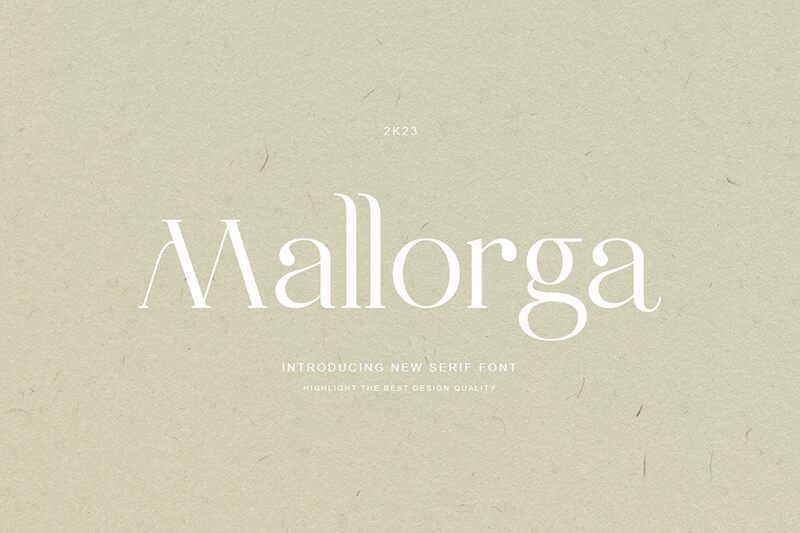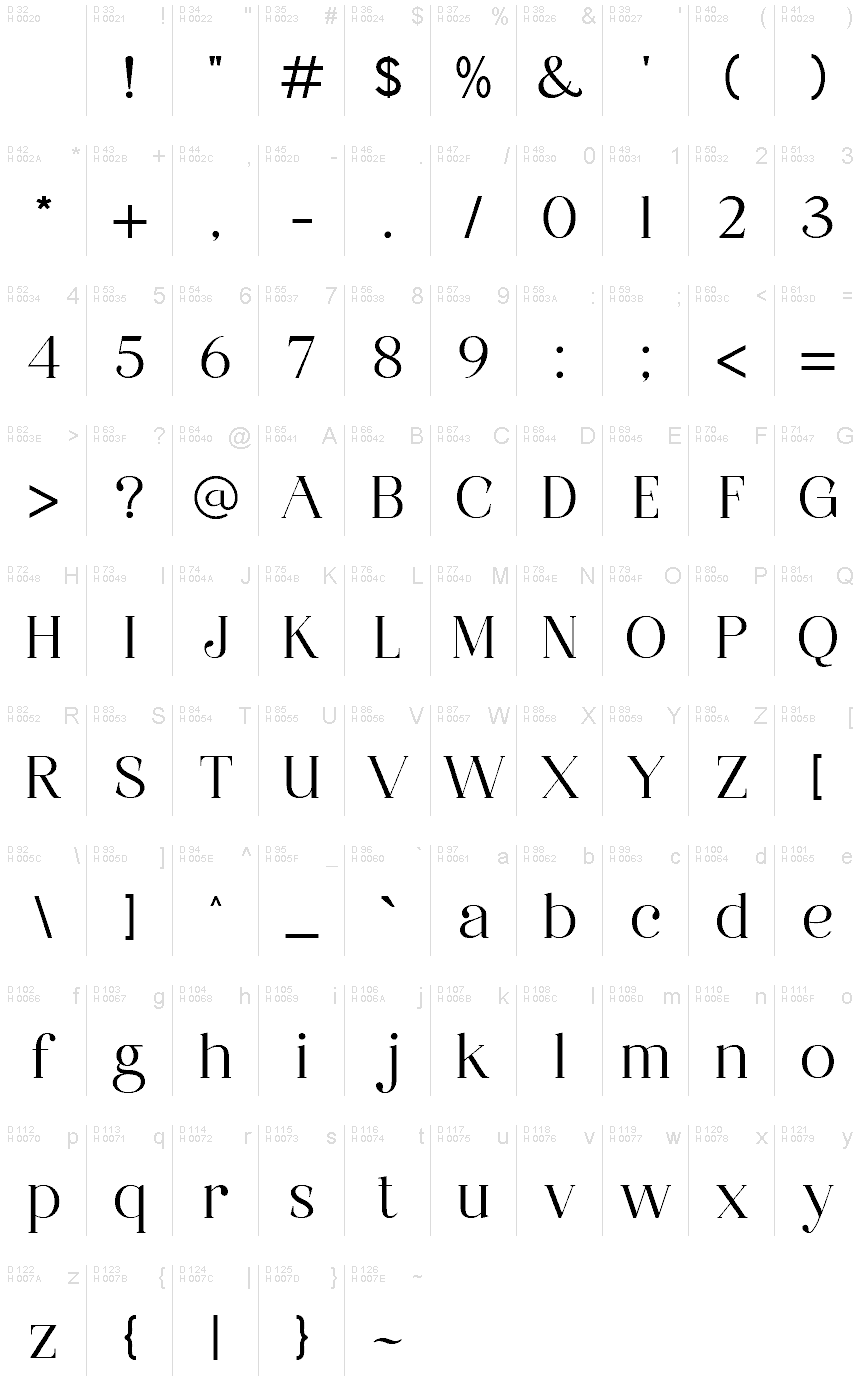
Mallorga
Mallorga font by Rmdndsign is a modern serif font that embodies elegance, sophistication, and refined aesthetics. With a slight vintage touch, its harmonious design brings together contemporary and timeless influences for visual beauty. The typeface’s flowing letterform appearance, classic proportions, and fashionable attributes guarantee outstanding readability in small presentations.
Enjoy Mallorga free serif font in book/poetry covers, packaging designs of cosmetics or fragrances, branding of fashion and home decoration businesses (logos), magazine lettering/typography – especially headings/titles destinations – quotes/posts for social media, biographies on portfolio websites as well as occasion cards (business or wedding) looking to impress readers by every word made special.